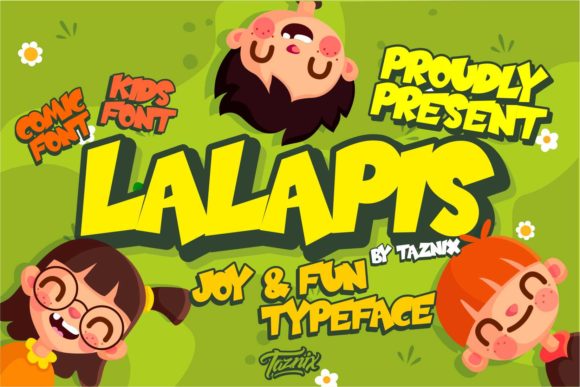
Get ready to inject your designs with a burst of playful charm and eye-catching allure! Introducing Lalapis, a whimsical display font that will bring a smile to your face and an unforgettable spark to your creations.
Picture this: your designs come alive with the childlike innocence and playful spirit of Lalapis. Every letter dances across the page, carrying with it a story of joy and imagination. Let your imagination soar as you craft captivating kids' projects, inject a touch of whimsy into school presentations, or add a burst of fun to any personal project that deserves a sprinkle of delight.
Lalapis is not just a font; it's an invitation to let your creativity run wild. Dive into the captivating world of Lalapis and watch your designs transform into vibrant expressions of joy and merriments.
With Lalapis at your fingertips, you hold the power to create designs that connect with your audience on a deeper level. Its captivating charm will draw them in, while its playful spirit will leave a lasting impression. Whether you're a seasoned designer or just starting your creative journey, Lalapis is the perfect font to add a touch of magic to your projects.
So, why settle for ordinary when you can embrace the extraordinary? Choose Lalapis today and embark on a delightful design adventure that will leave your audiences enchanted and eager for more. Let the joyful spirit of Lalapis ignite your creativity and spread happiness through your designs!